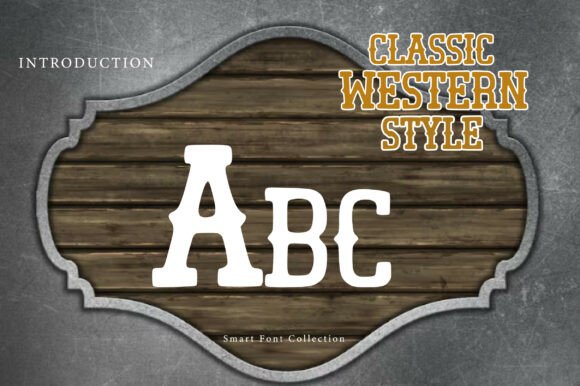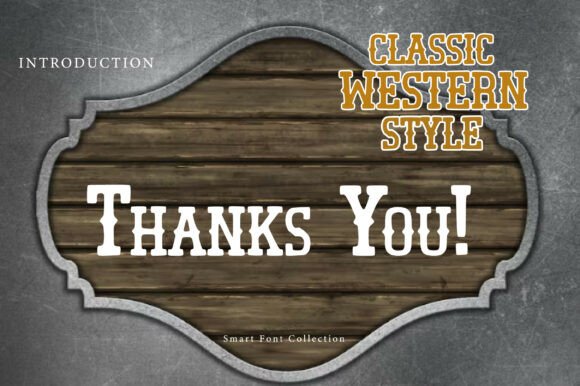
Introduction to Classic Western Style Font
Classic Western Style is a bold vintage display typeface inspired by traditional Wild West signage and old American frontier typography.
It features strong slab-like serifs, sturdy letterforms, and a rugged, nostalgic character that evokes cowboy culture, saloons, and western posters This font is perfect for logos, posters, headlines, packaging, apparel, signage, and branding projects that need an authentic western, rustic, or retro Americana look.
Key Features of Classic Western Style Font